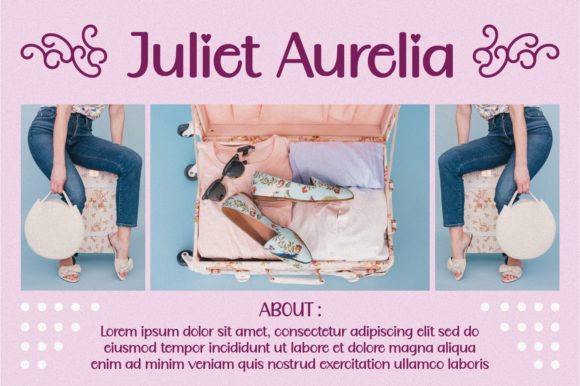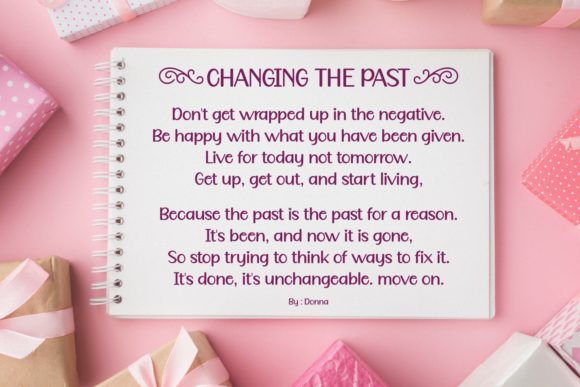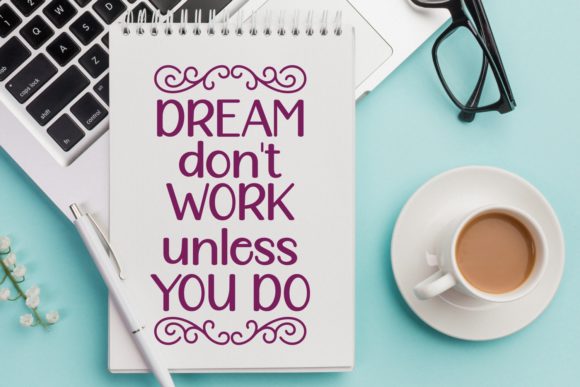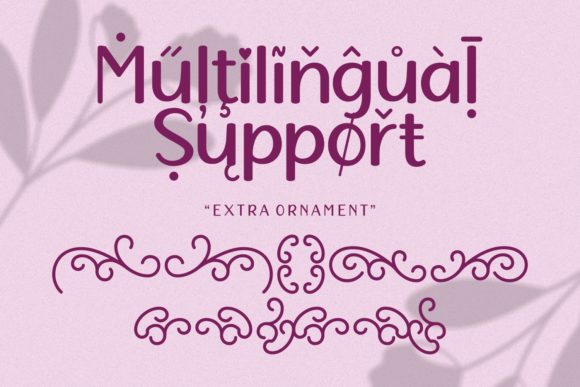
About Lovely Poetry Font
Lovely Poetry is a jolly and friendly handwritten font, that can easily stand out. Simple but with a strong visual effect, this font will instantly make your creation more appealing than any others.